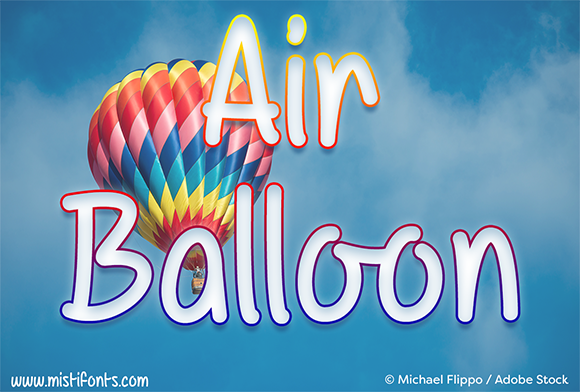
HomeScript FontsAir Balloon Font Script Fonts Air Balloon Font FacebookXPinterestWhatsApp About Air Balloon Font Air Balloon is a cute, handwritten font that is perfect for your craft and design projects! DOWNLOAD NOW People also explored Thorque Font Glunung Font Pouline Welcome Affection Font Smart Children Font Dead Dare Font Whitelisa Font Vic Gallagher Font Saturday Font 285 0 TagsAir Balloon Font Previous articleApples Script FontNext articleA Little Mixed Up Font LEAVE A REPLY Cancel reply Comment: Please enter your comment! Name:* Please enter your name here Email:* You have entered an incorrect email address! Please enter your email address here Website: Save my name, email, and website in this browser for the next time I comment. Personal Use Free Cline Personal Use Free Read more about this font Hatia Script Personal Use Free Read more about this font Anti Personal Use Free Read more about this font Husky Stash Personal Use Free Read more about this font BLOG Exploring Font Trends Shaping Communication in the Digital Era Fonts, like all design elements, are subject to trends. They play a crucial role in communicating a brand's personality,... Best Fonts for T-Shirt Design – Top 2025 Picks Where to Buy American Fonts Online in 2024 Free Fonts Risk: Why Free Fonts Can Be Dangerous for Designers